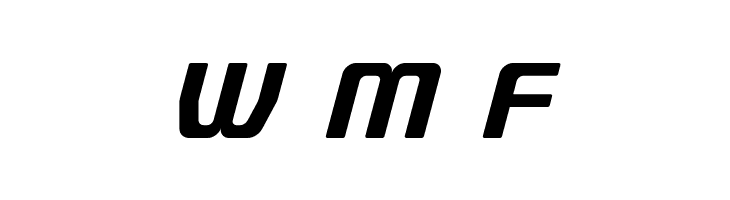
A playful, polka dot-filled decorative font with a hand-drawn style.
A playful handwritten font with a casual and friendly style.
A geometric sans-serif font with a clean and modern design.
A playful, bold font with rounded, whimsical characters.
A playful, dotted font with connected lines, perfect for creative projects.
A playful, dot-connected font with a whimsical and creative style.
A bold, sketch-style font with a hand-drawn, textured appearance.
A playful, hand-drawn font with rounded, friendly characters.
A playful, hand-drawn font with characters enclosed in irregular boxes.
A playful, handwritten font with rounded edges and a casual style.
A playful, hand-drawn style font with rounded, childlike characters.
A playful, hand-drawn font with dynamic strokes and a whimsical feel.
A playful, hand-drawn font with a sketch-like, double-line design.
A playful, handwritten font with bold, irregular strokes.
A playful, handwritten font with flowing, cursive-like letters and a whimsical style.
A playful, handwritten font with bold, rounded characters.
A whimsical, hand-drawn font with a scarecrow theme, featuring straw-like elements.
A bold, playful font with a hand-drawn, modern style.
A playful, bold, and hand-drawn style font with a whimsical touch.
A pixelated, monospaced font with a retro digital style.
A playful, hand-drawn font with bold outlines and a whimsical style.
A playful, hand-drawn outlined font with a whimsical and creative style.
A playful, hand-drawn font with bold, rounded characters.
A bold and edgy skull and crossbones motif design with intricate details.
Playful skull and crossbones icon font with bold, circular glyphs.
A display font made up of diverse skull and crossbones illustrations.
A bold, cracked texture font with a rugged, urban style.
A futuristic, circuit-inspired decorative font with bold geometric designs.
A sleek, semi-condensed italic font with medium contrast and modern appeal.
A modern, semi-condensed font with clean lines and uniform stroke width.